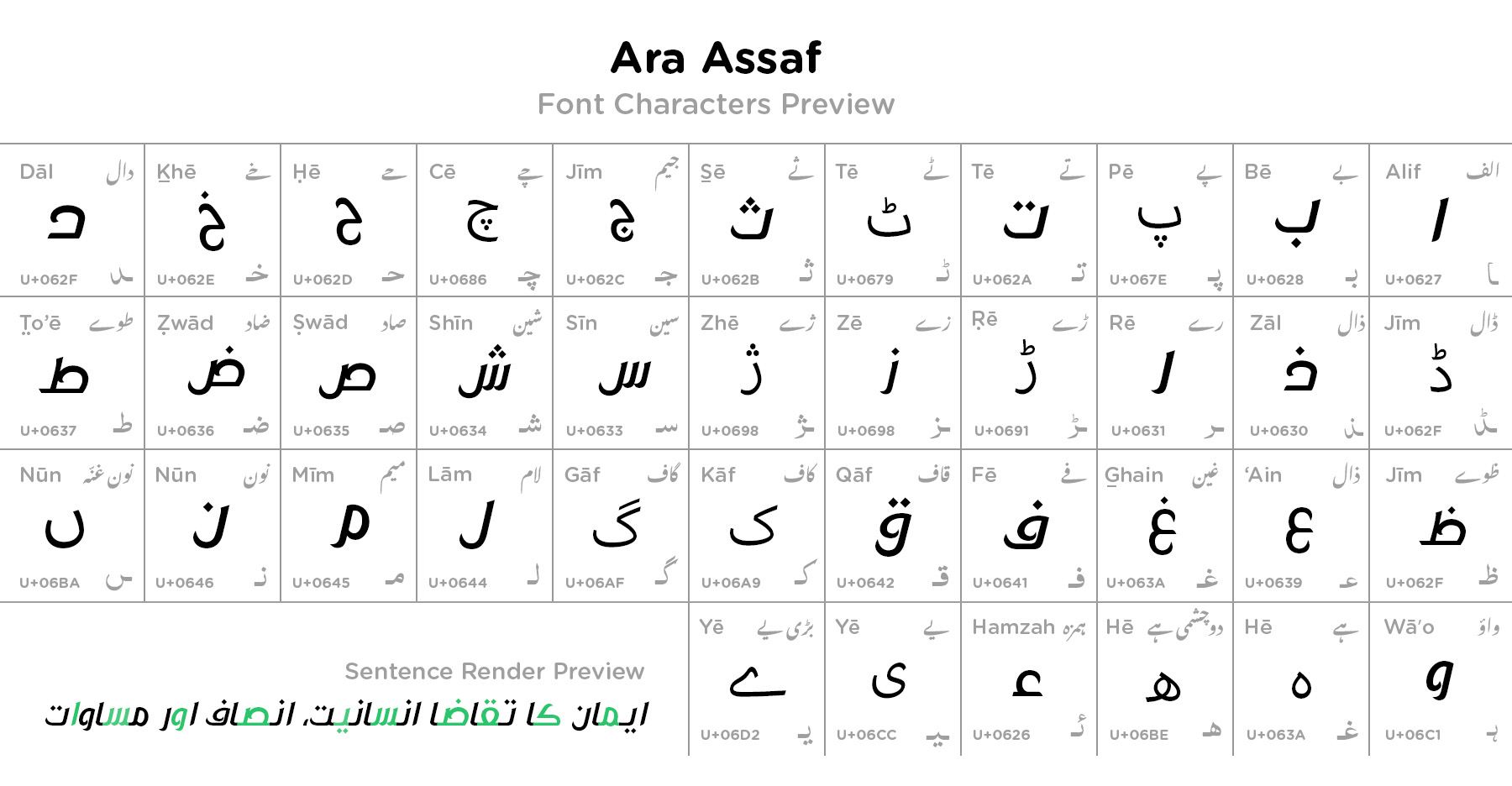
Ara Assaf is a bold and elegant Arabic font designed by Zakariya Saleh and Abdullah Aref and released by ZakDesign. Inspired by Naskh’s calligraphy, it includes a modern design influence, featuring subtle slants and an uncluttered appearance. With 487 characters and 411 glyphs, Ara Assaf offers comprehensive language support for Arabic, Latin, Urdu, and Persian, ensuring versatility across various design projects. Its bold and consistent thickness, along with solid and impactful strokes, maintains high legibility even at smaller sizes. However, it is available only in single weight, limiting its use and flexibility.
It’s monospaced, and even spacing enhances readability, complemented by blunt corners and thin terminals, adding to its visual elegance. Best suited for short textual blocks as the text would look a little condensed and make it hard to read for longer periods. Moreover, Ara Assaf finds applications in headers, headlines, book covers, posters, formal documents, branding, and tech logos, where its bold and elegant appearance makes a statement. Its Unicode blocks encompass Basic Latin, Latin-1 Supplement, Latin Extended-A, Spacing Modifier Letters, Arabic, General Punctuation, Letterlike Symbols, Arabic Presentation Forms-A, and Arabic Presentation Forms-B, ensuring comprehensive language support and compatibility across various digital platforms.